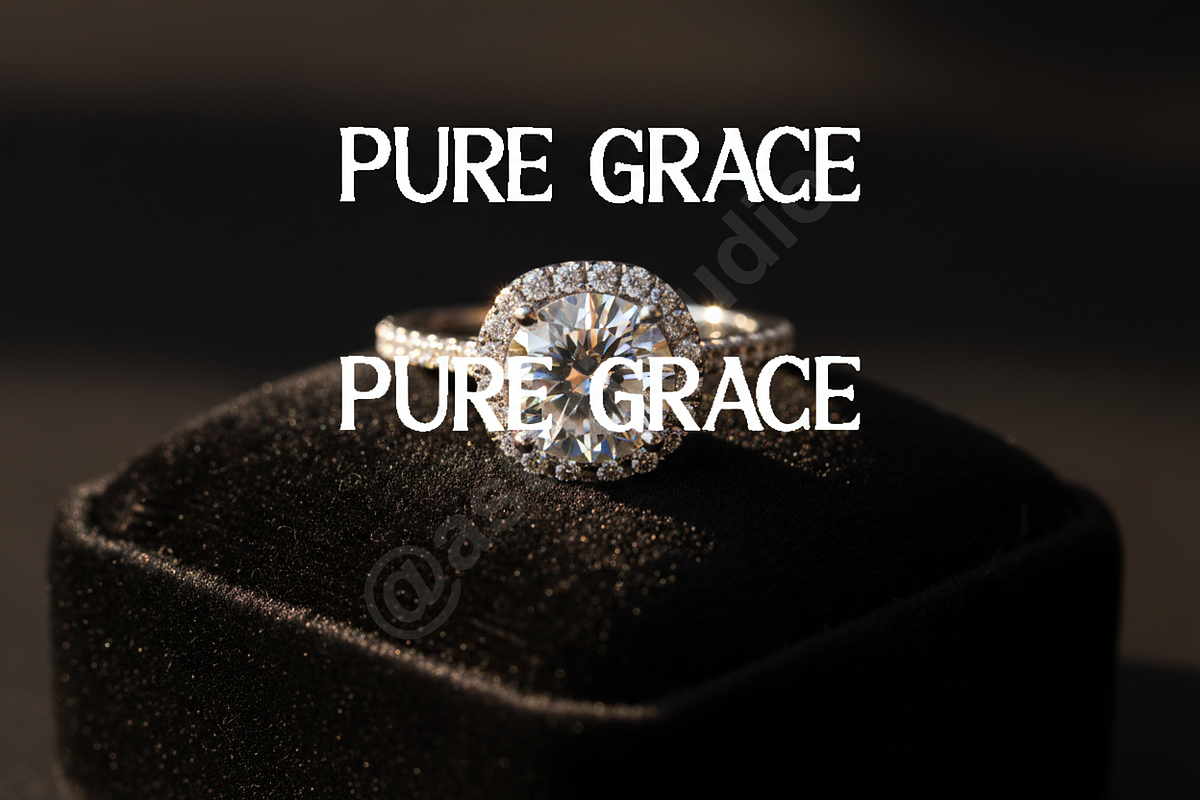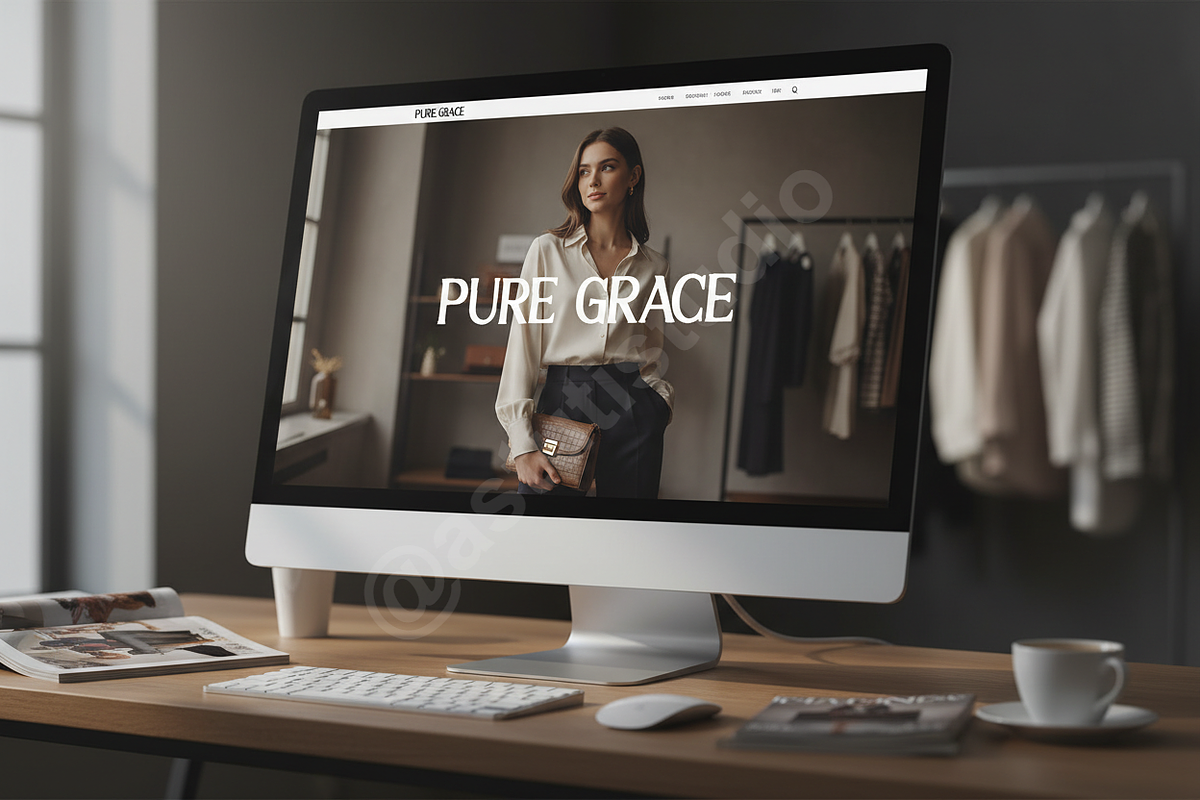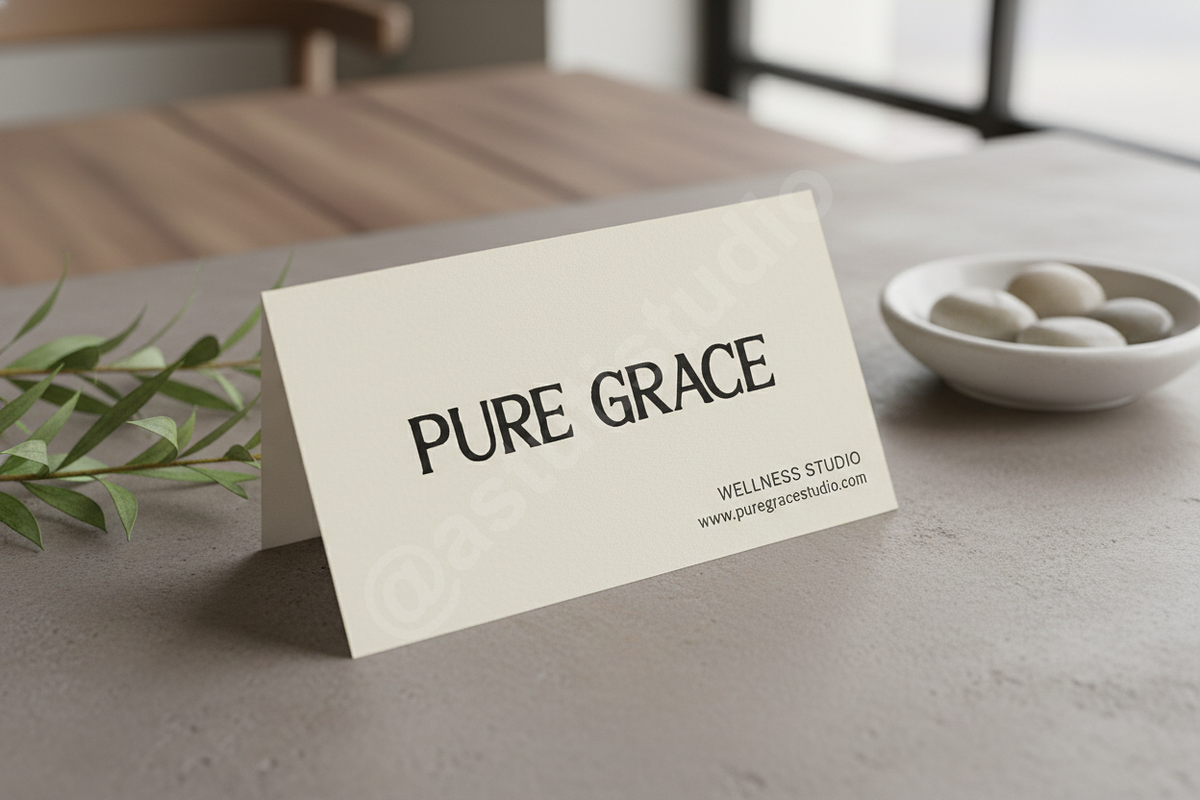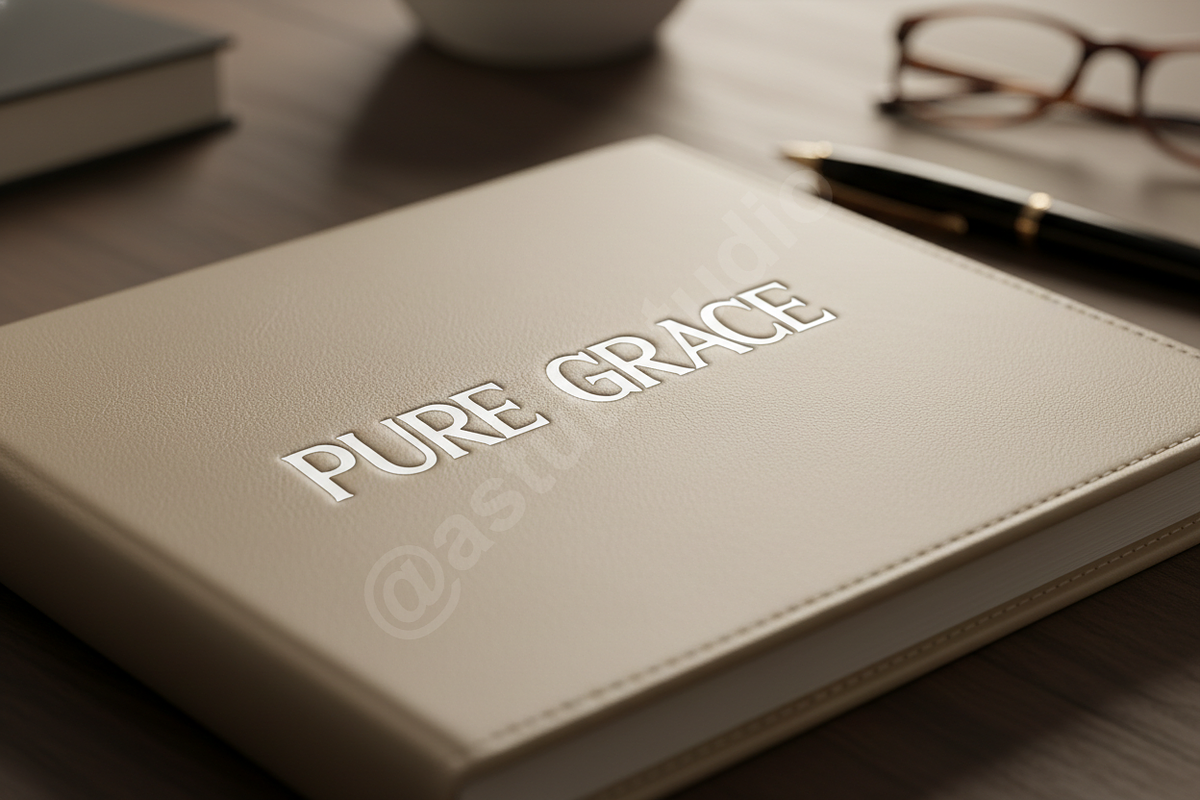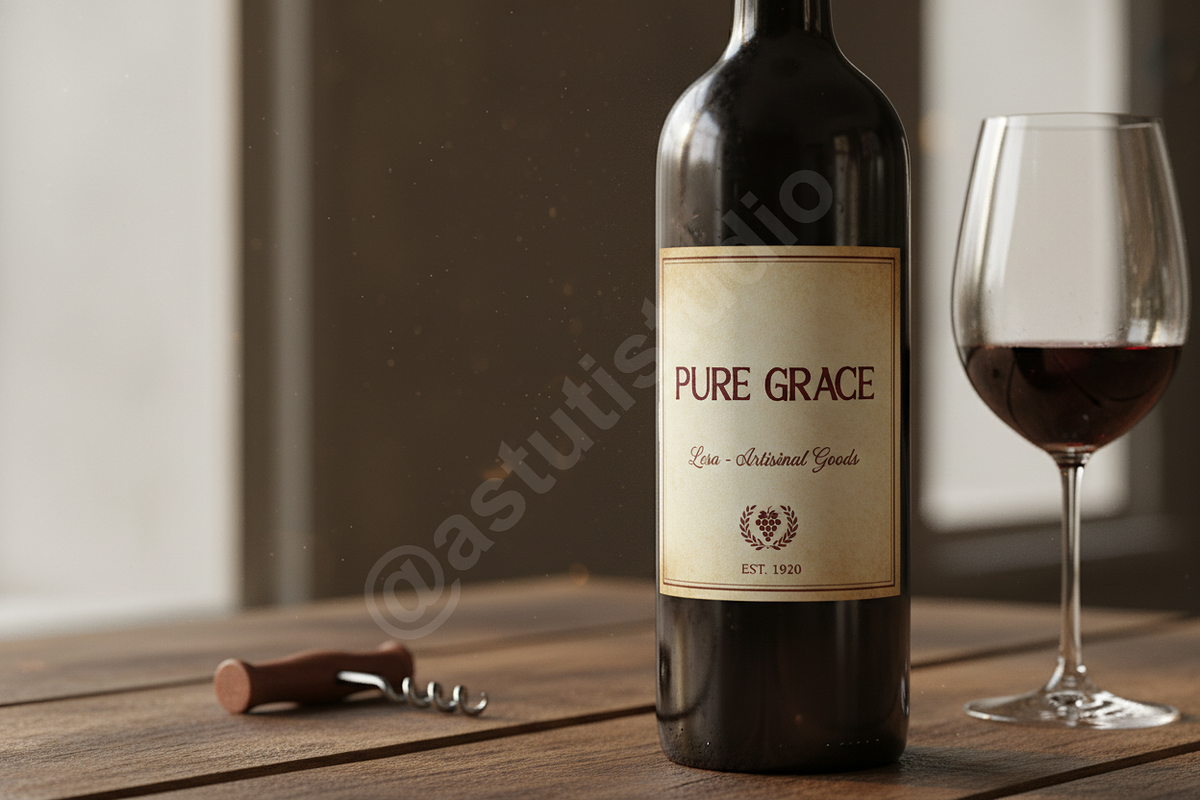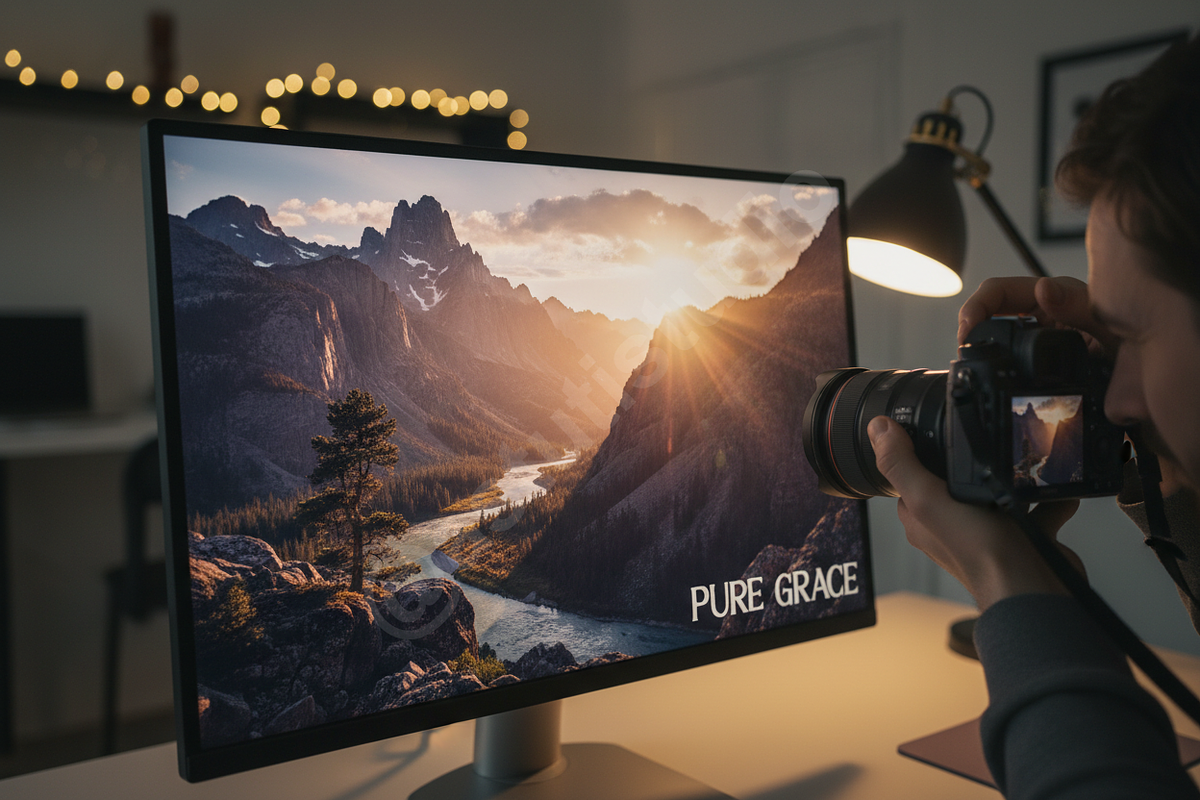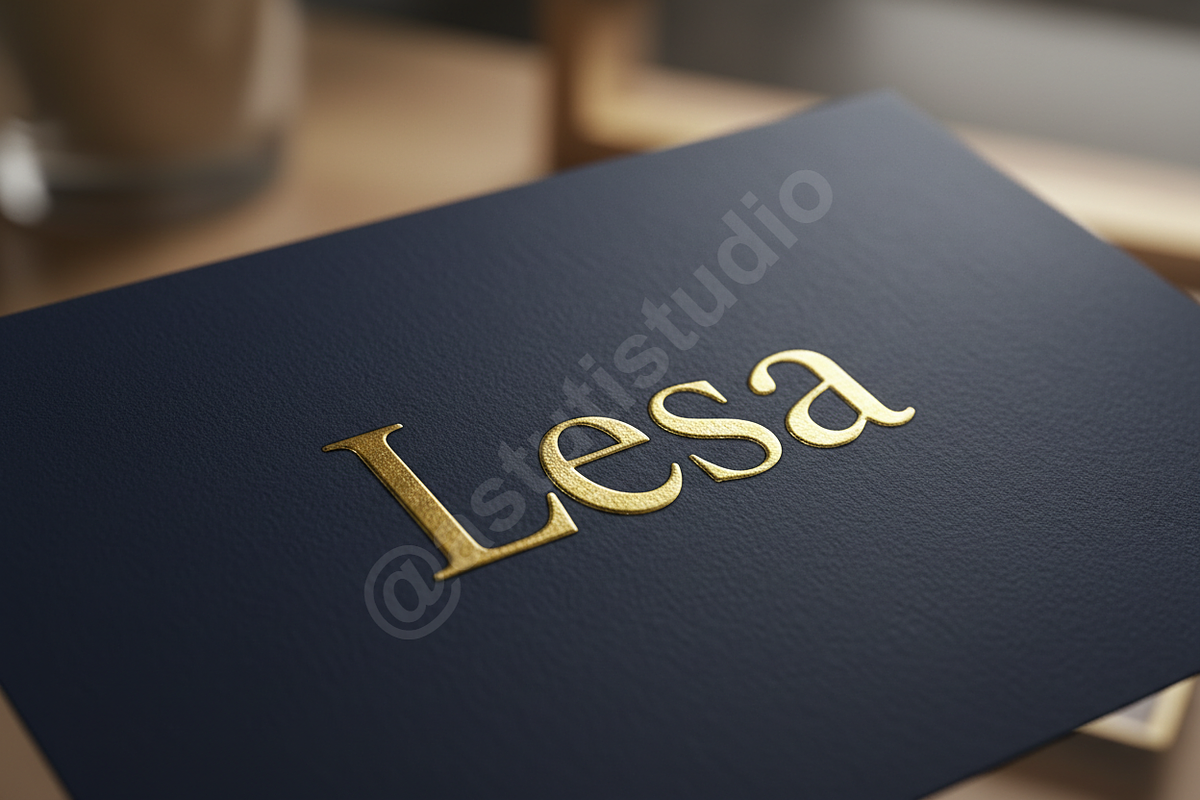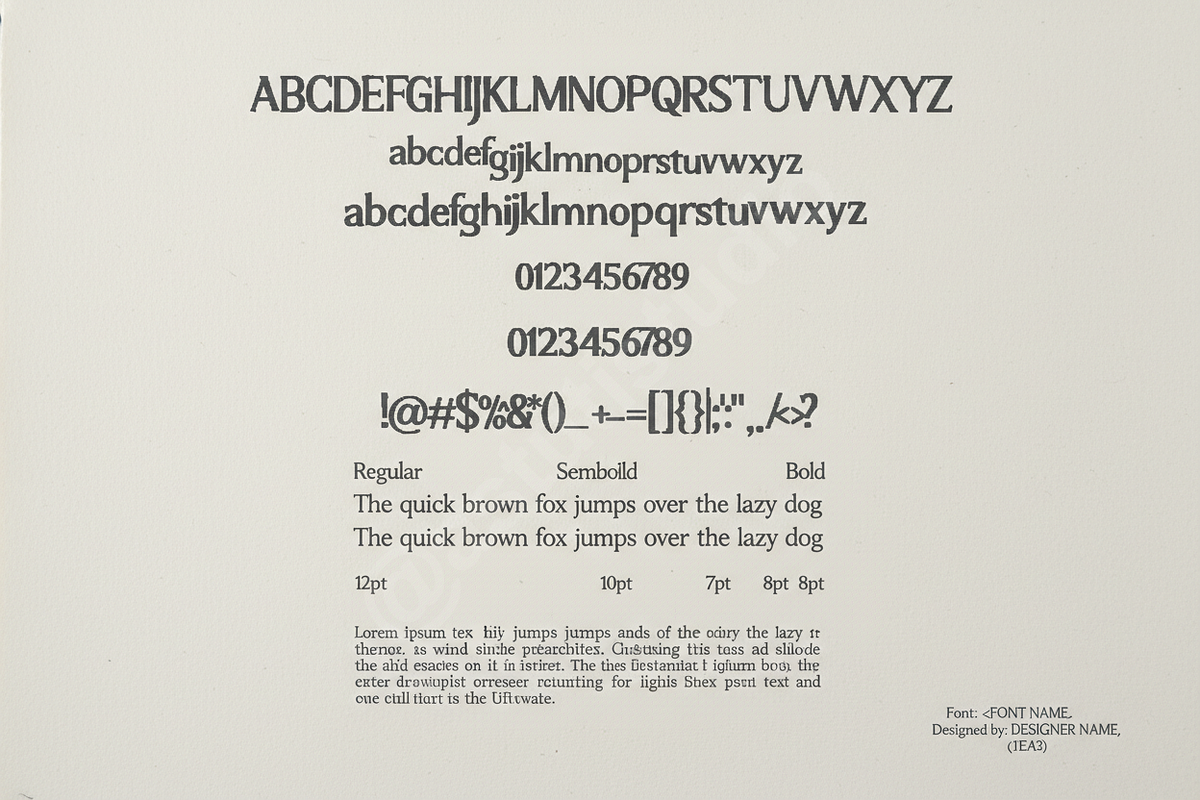
Lesa | Elegant & Sophisticated Sans
Introduction: Lesa is a refined sans-serif typeface designed for high-end aesthetics. It strikes a perfect balance between modern minimalism and classic luxury, making it an essential tool for designers crafting high-impact visual identities. Whether you are working on a boutique brand, a high-fashion editorial, or polished social media content, Lesa provides a sophisticated touch that elevates any project.
- Sleek, modern letterforms with balanced proportions
- Optimized for both digital and print media
- Extensive multilingual support
- Ideal for luxury branding, wedding invitations, and editorial layouts
- Full Character Set (A-Z, a-z, 0-9)
- Standard Punctuation and Symbols
- Multilingual Character Support